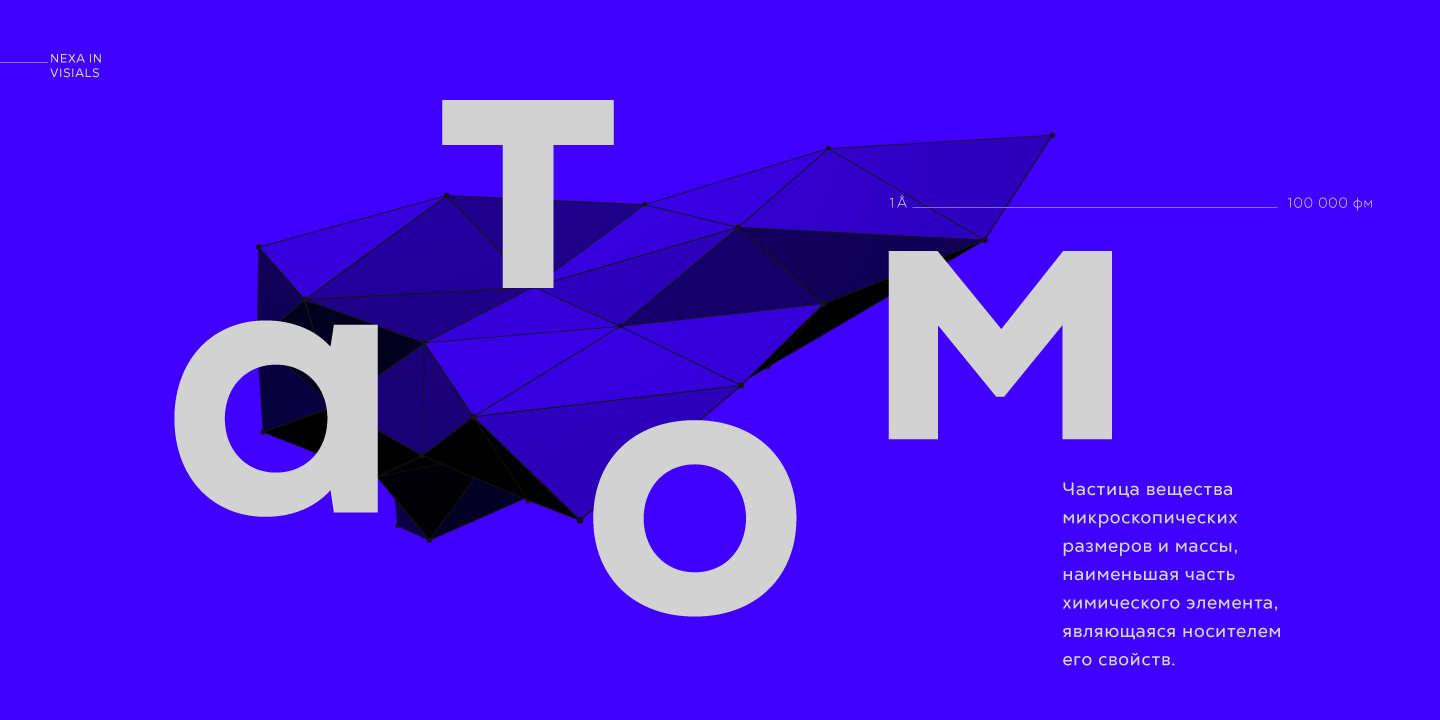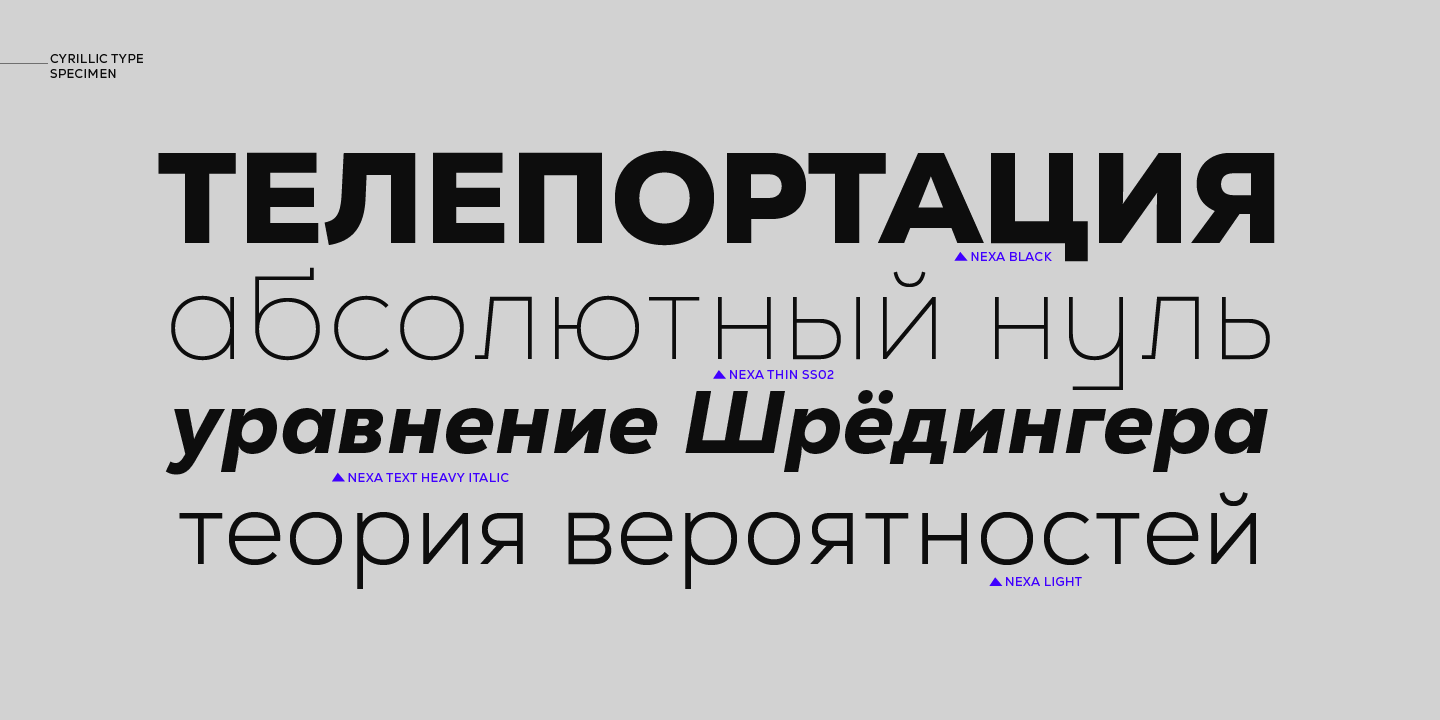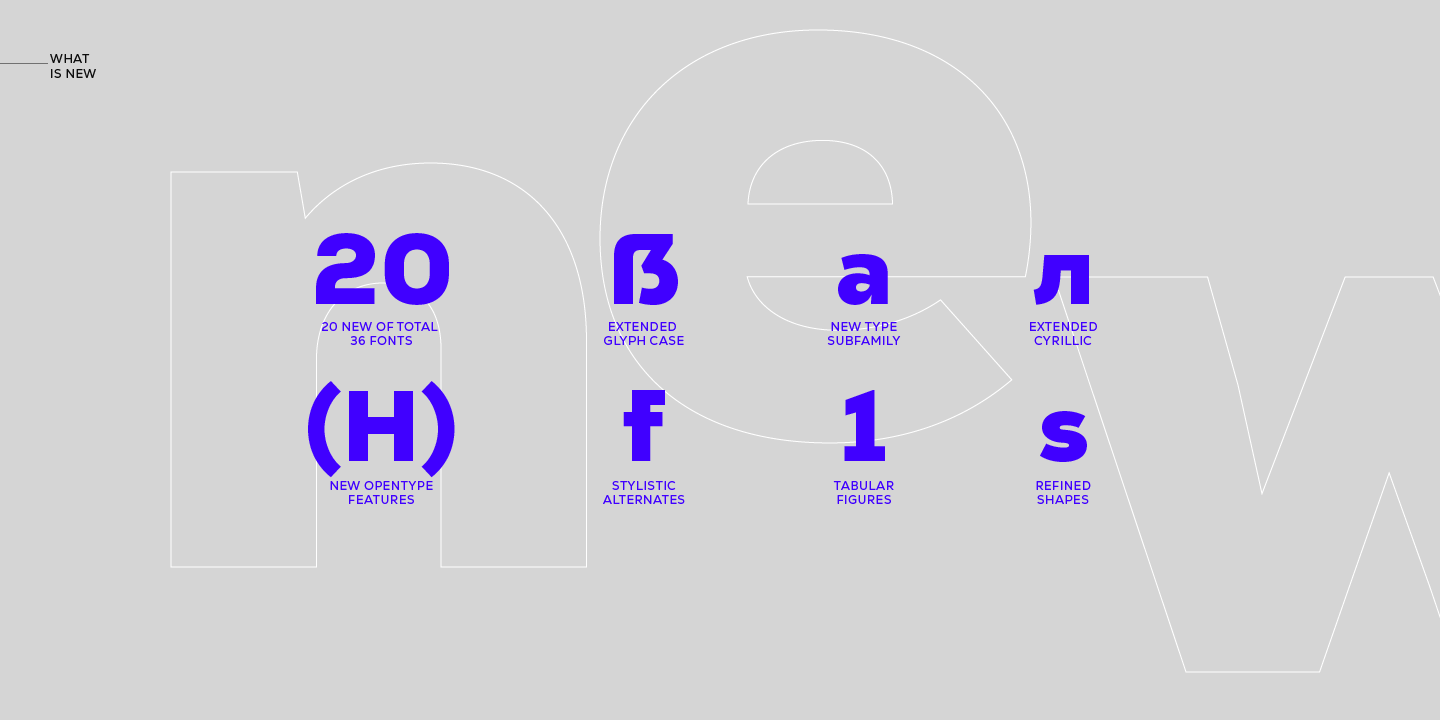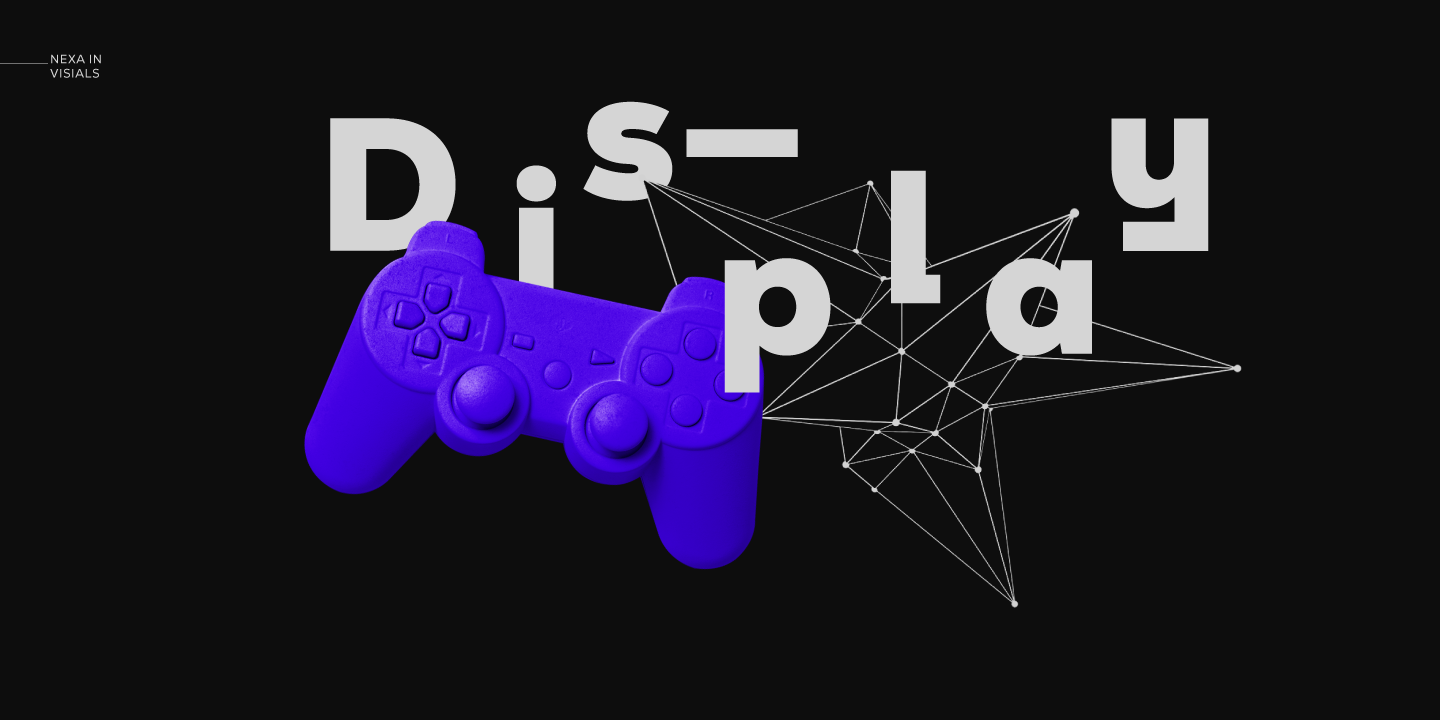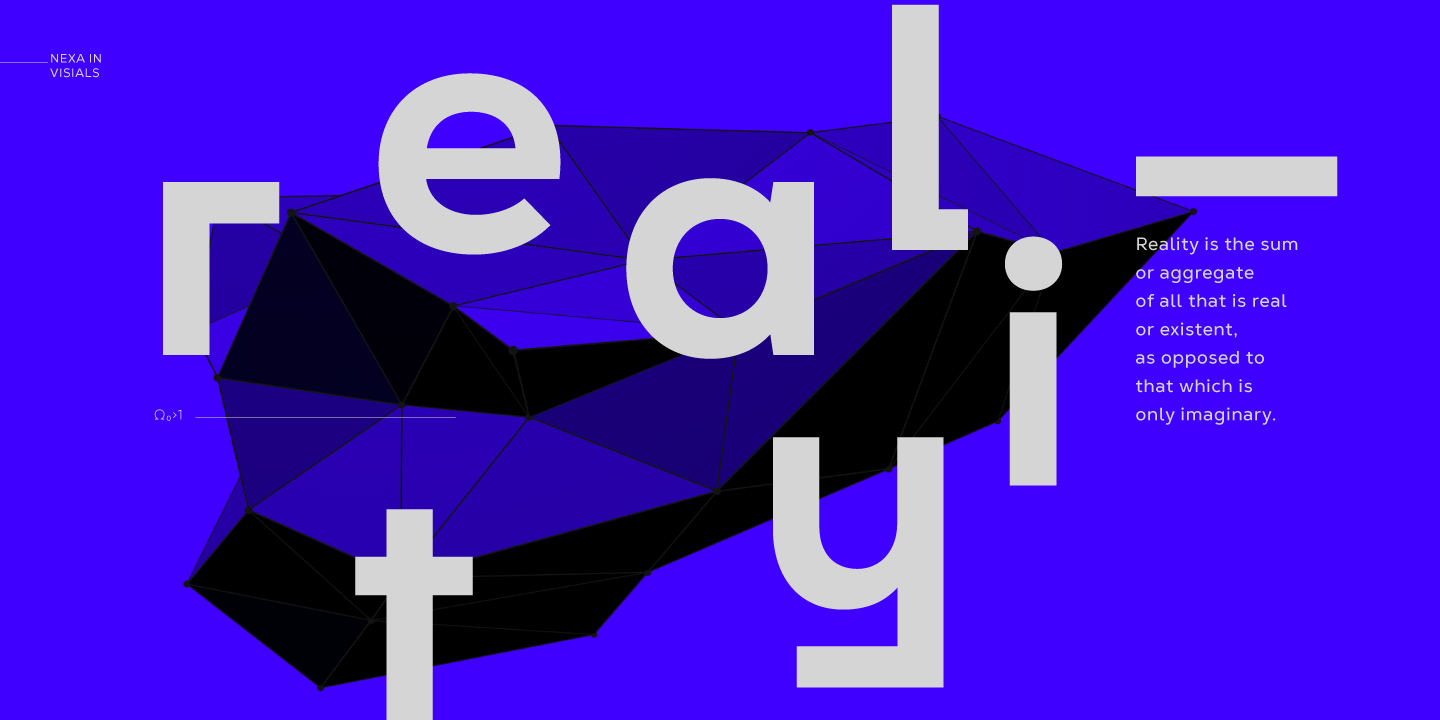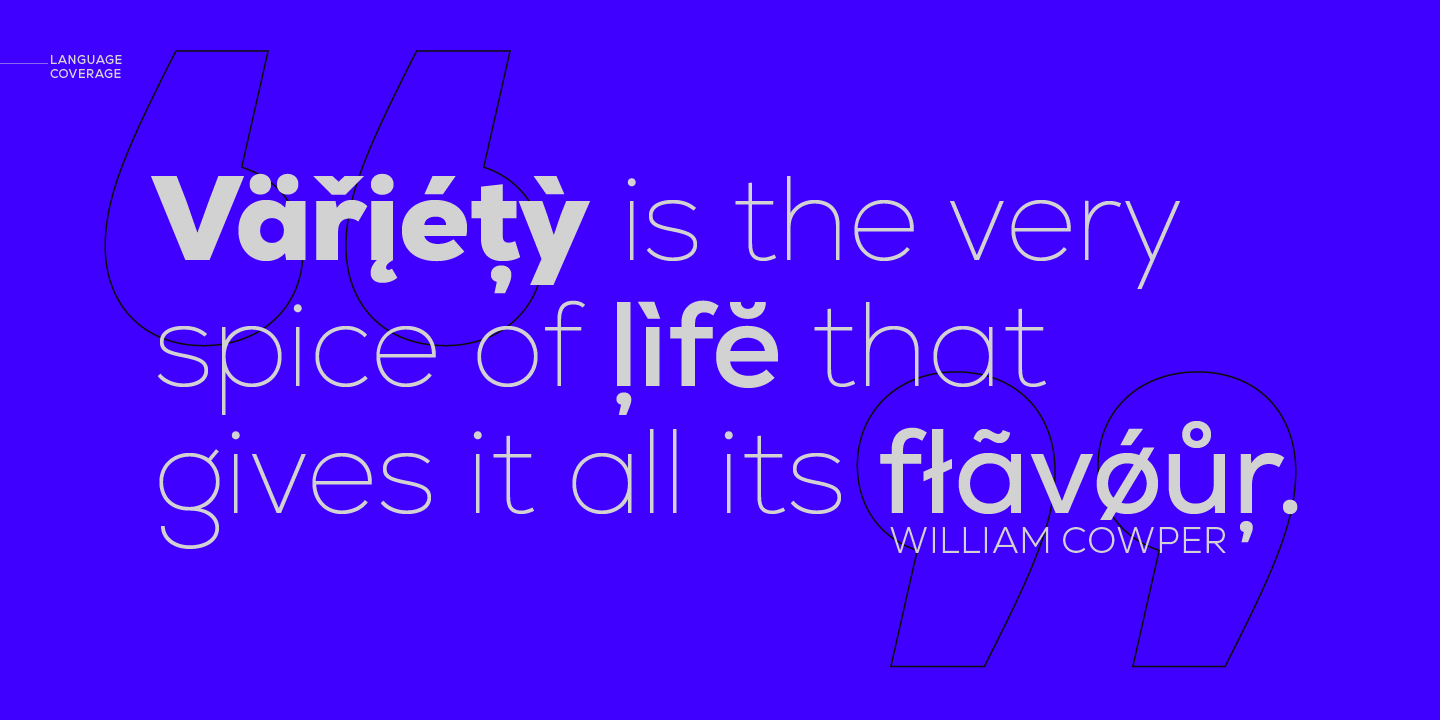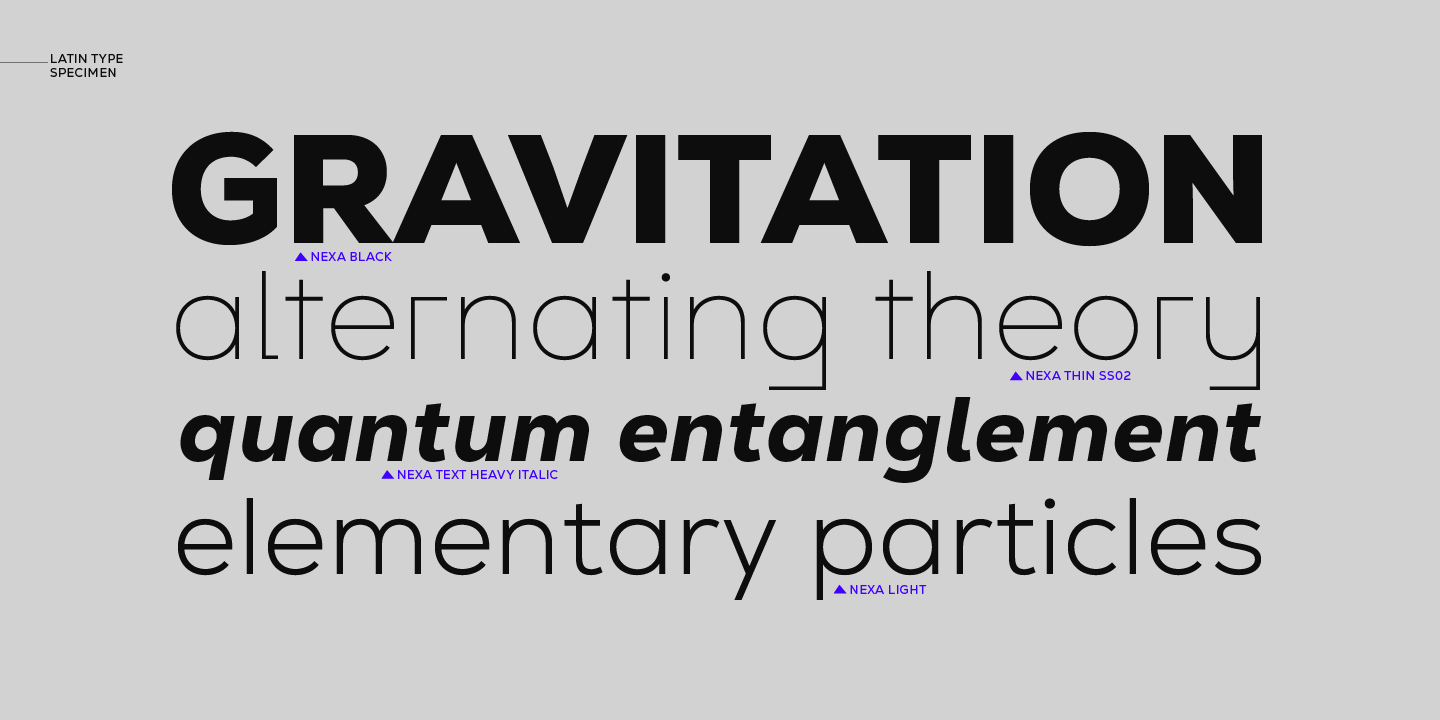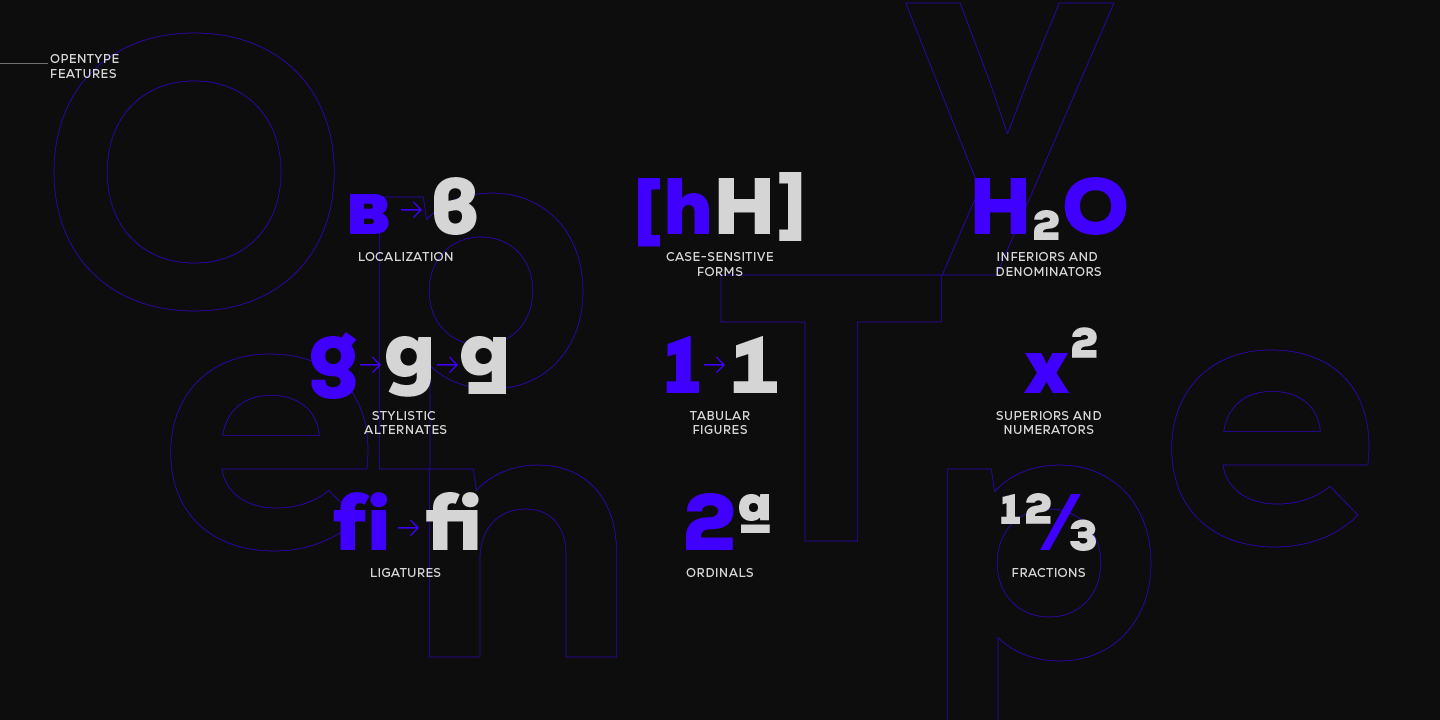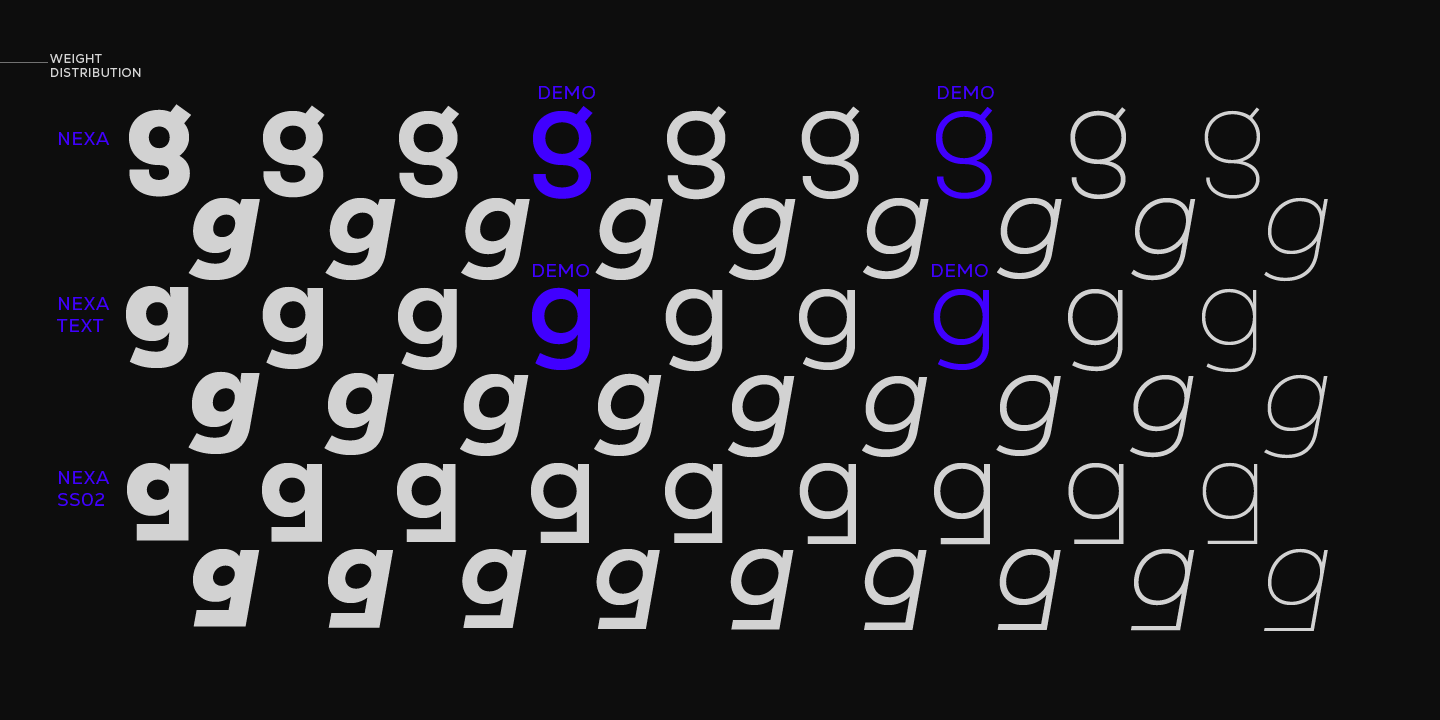
Nexa Heavy
Improved kerning of the Updated Version of 2020 - New Features: • Cyrillic language support • Bulgarian Localization • Completely New Nexa Text subfamily • New ExtraLight weight with a corresponding italics • Stylistic Set suitable for Display purposes - ss02 • Tabular Figures Even the most recognizable typefaces of our time, such as Nexa, should be updated sometimes. We proudly present you with the latest upgraded version of the notorious geometric sans serif. The completely refined family design comes with an addition of one more weight—Extra Light—and its matching italic, alongside an entirely new subfamily—Nexa Text, optimized for longer text, and even a futurist stylistic set of Nexa for an alternative display look. The outcome is altogether 9 weights and 36 fonts! The glyph case now covers not only an improved Extended Latin but a new set of Cyrillic with adequate language localization. The fluent functionality of Nexa is achieved with multiple OpenType features, such as case-sensitive forms, contextual and stylistic alternates. The standard numerals set encompasses tabular figures and symbols, superiors and inferiors, numerators and denominators, plus fractions. The unique appearance of Nexa combined with rich variety places it beyond the scope of regular geometric typefaces for all kinds of scales and purposes and designs that speak for themselves.